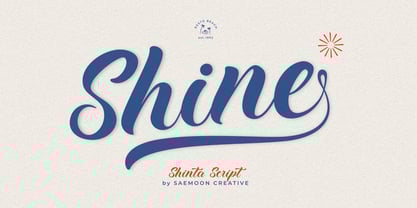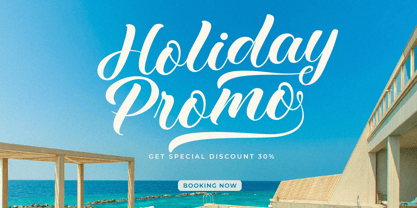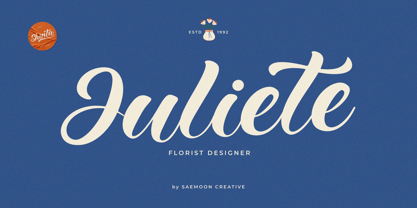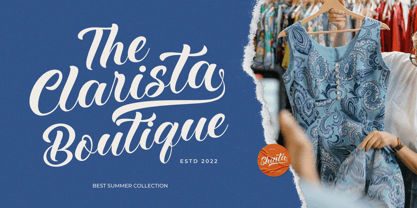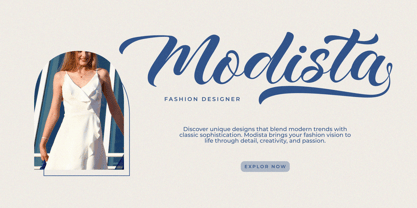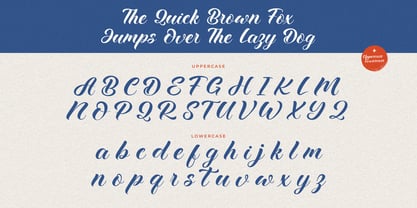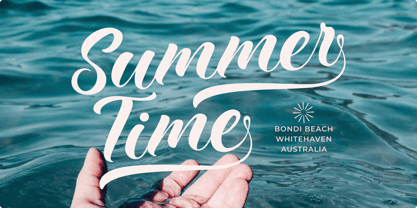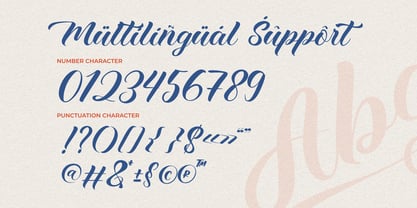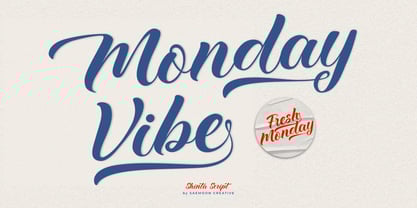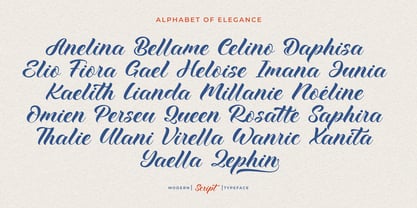
Sc Shinta
by Saemoon Creative
The Sc Shinta Font Family was designed by Sapto Susilo and published by Saemoon Creative. Sc Shinta contains 1 styles. More about this family
Shinta is a modern script typeface with smooth curves and elegant letter flow, perfect for bringing a luxurious and personal touch to your designs. Designed with a balance of classic charm and modern flair, Shinta offers well-crafted letterforms, seamless letter connections, and beautiful swashes. Ideal for logos, wedding invitations, product packaging, posters, branding, and a wide range of creative projects.
Designers: Sapto Susilo
Foundry: Saemoon Creative